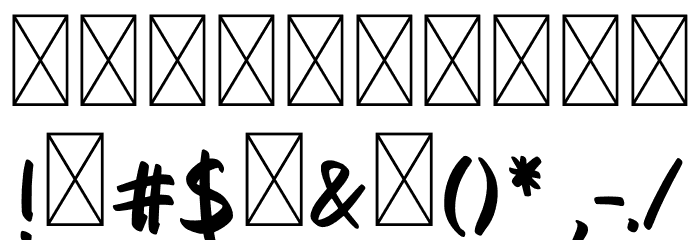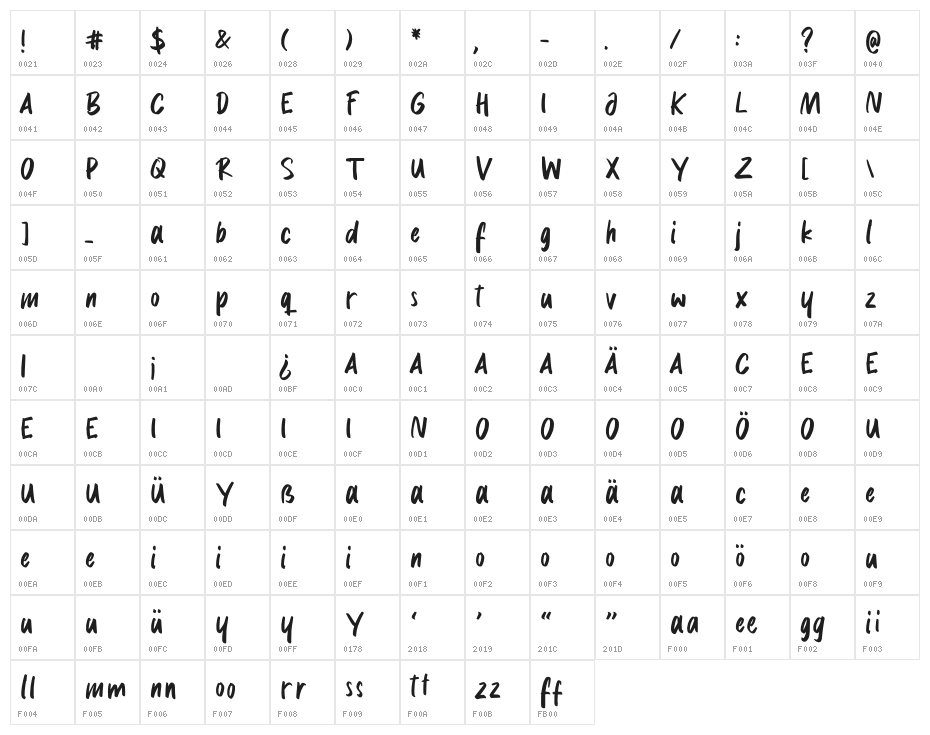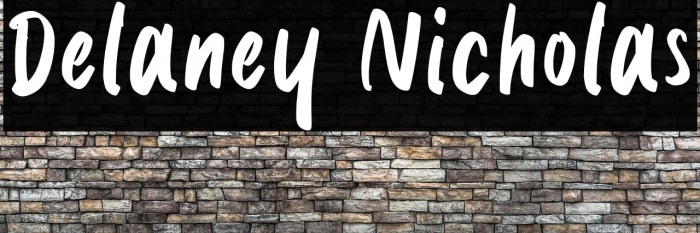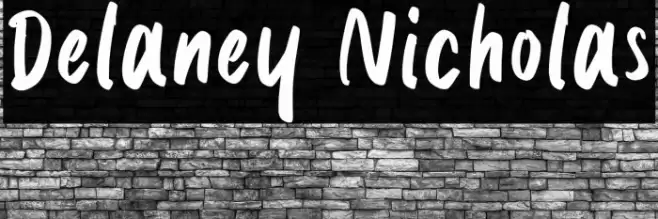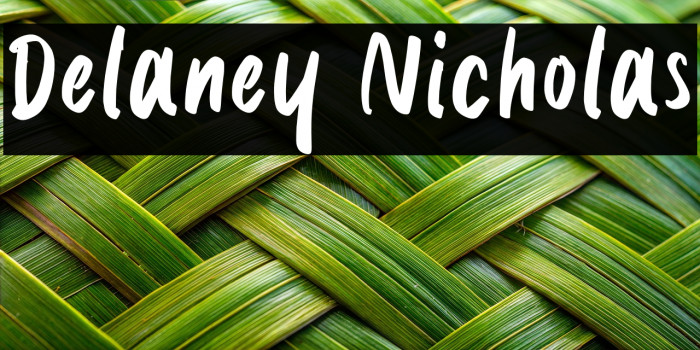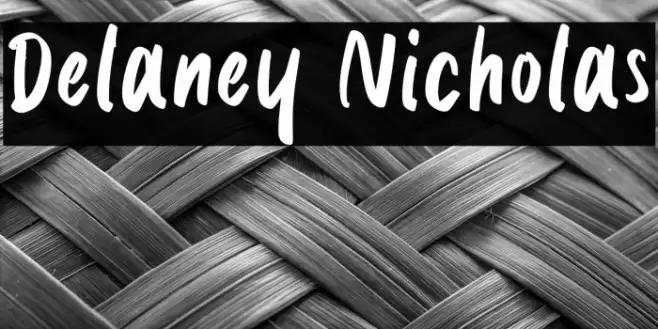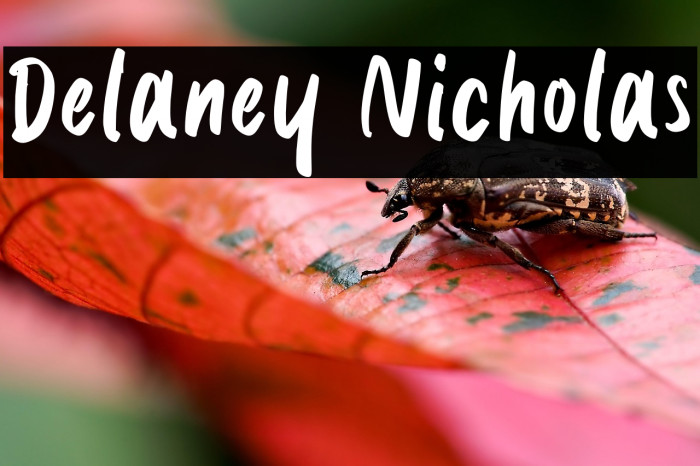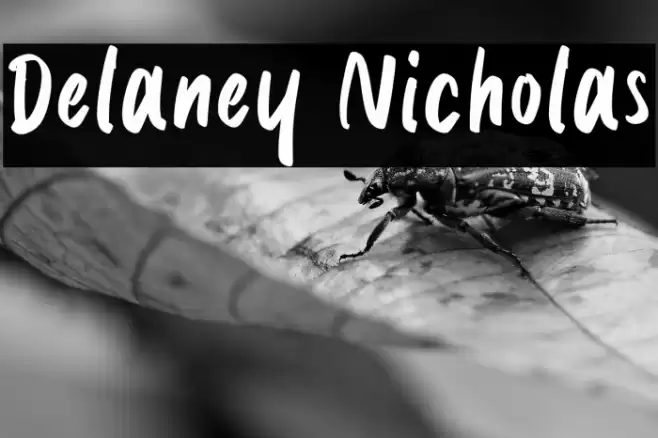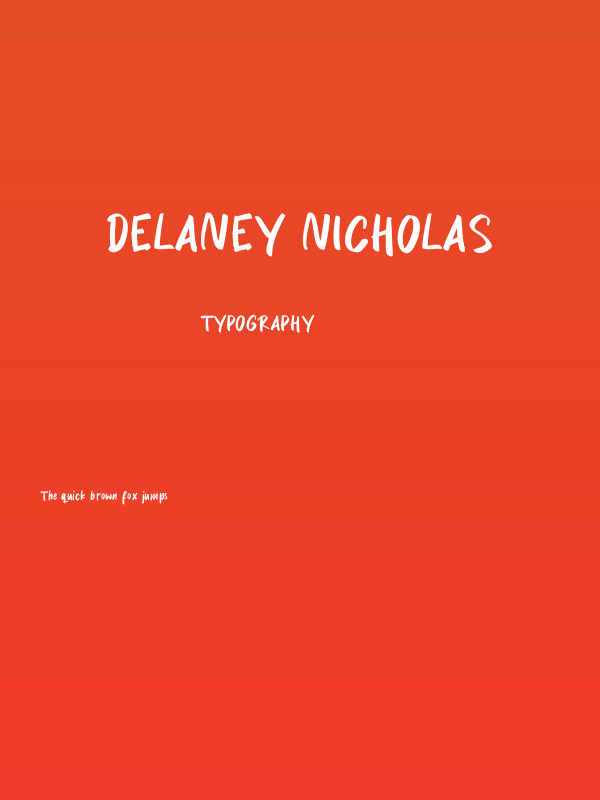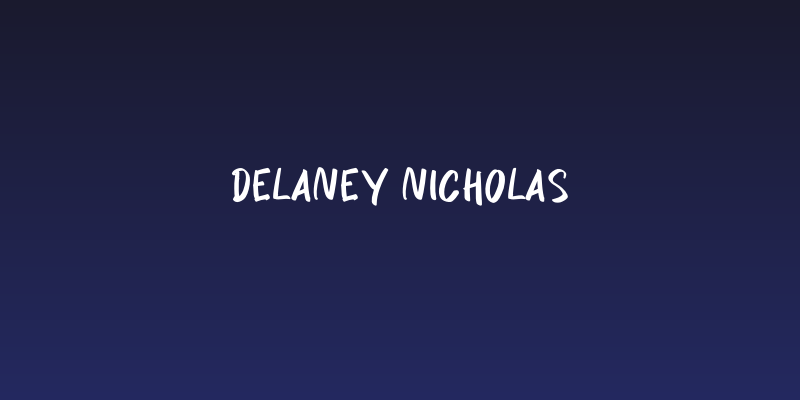
Delaney Nicholas Font
Delaney Nicholas Description
This font features a bold and expressive handwritten style, characterized by its dynamic and fluid strokes. The uppercase letters are slightly larger and more pronounced, while the lowercase letters maintain a consistent flow, adding a casual yet artistic touch. The characters are slightly slanted, giving a sense of movement and energy. The font includes a full set of uppercase and lowercase letters, numerals, and a selection of special characters. Its playful and informal appearance makes it suitable for creative projects that require a personal and approachable feel.
| Overall Style | Casual, Artistic |
| Proposed Projects | Ideal for greeting cards, invitations, posters, and branding projects that require a personal touch. |